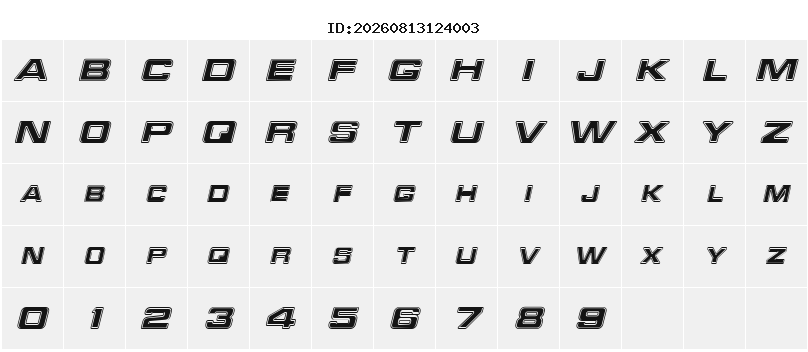
Red Alert Preview
• Font Name: Red Alert
• Full Font Name: Red Alert Italic
About Red Alert.ttf
Red Alert.ttf is a modern, elegant sans-serif font designed for ultimate readability and visual harmony. Perfect for branding, headlines, web design, and print materials.